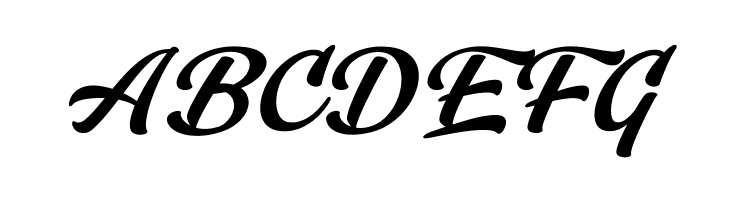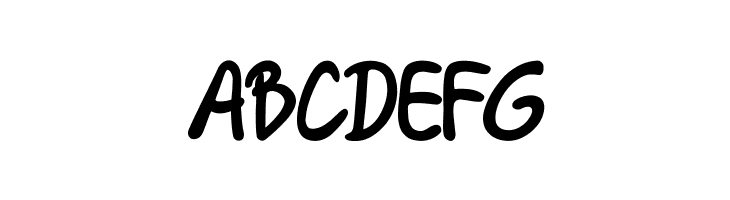
( Fonts by Andarina )
Casual handwritten font with rounded, playful forms.
A bold, flowing script font with interconnected characters and elegant curves.
A bold, expressive script font with high contrast and flowing cursive letters.